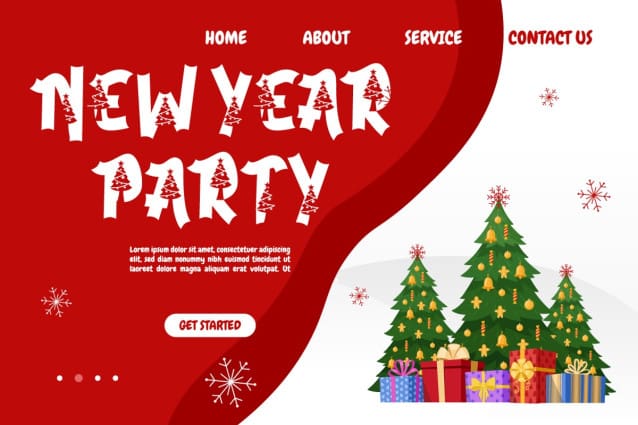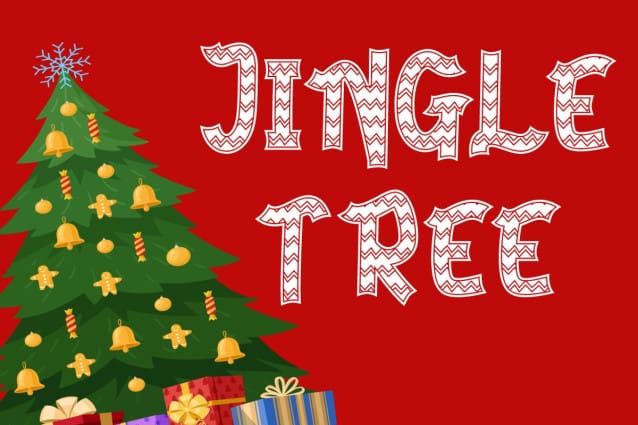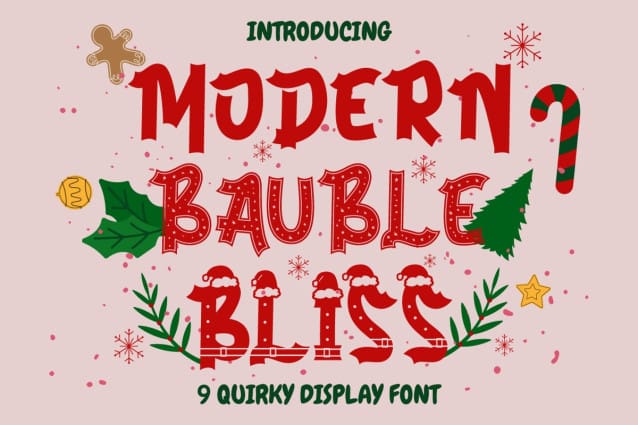
Modern Bauble Bliss Font
Modern Bauble Bliss Font, a quirky display font that captures the spirit of the holiday season. This font is perfect for adding a touch of whimsy and magic to your designs, whether you’re creating logos, branding, invitations, packaging, posters, titles, or anything else related to Christmas.
Modern Bauble Bliss comes with 9 different font styles, each with its own unique charm and personality. You can use them individually or mix and match them to create stunning combinations. The font is adorned with elements like snowflakes, stars, candy canes, holly leaves, and more, making it a versatile and delightful choice for any crafter or designer.